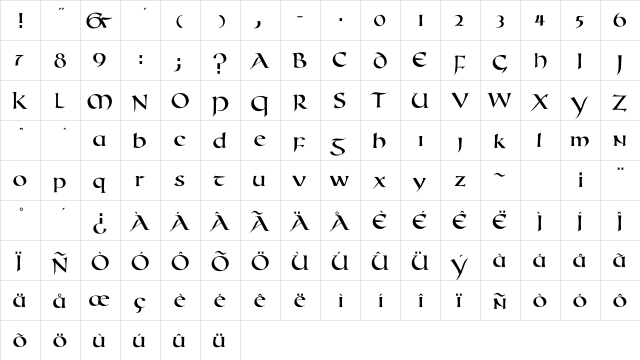
Roman Uncial Modern Medium
Design Context for Roman Uncial Modern Typeface
Roman Uncial Modern is a composed and adaptable typeface that performs quietly and consistently across a wide range of design contexts.
Pro Tip: Use Roman Uncial Modern in both headline and body roles to test its range before committing to a single application.